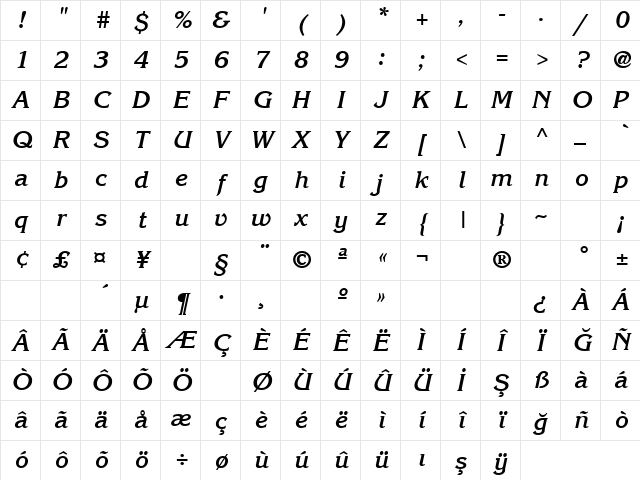
TR Eagles Bold Italic Free Font
TR Eagles Bold Italic
TR Eagles Family
Design Context for TR Eagles
TR Eagles is a composed and adaptable typeface that performs quietly and consistently across a wide range of design contexts. The slanted form adds forward momentum and visual energy. Its bold stroke weight gives it real presence on the page.
Pro Tip: Use TR Eagles for emphasis, pull quotes, and subheadings where its slanted energy can add rhythm to the layout.